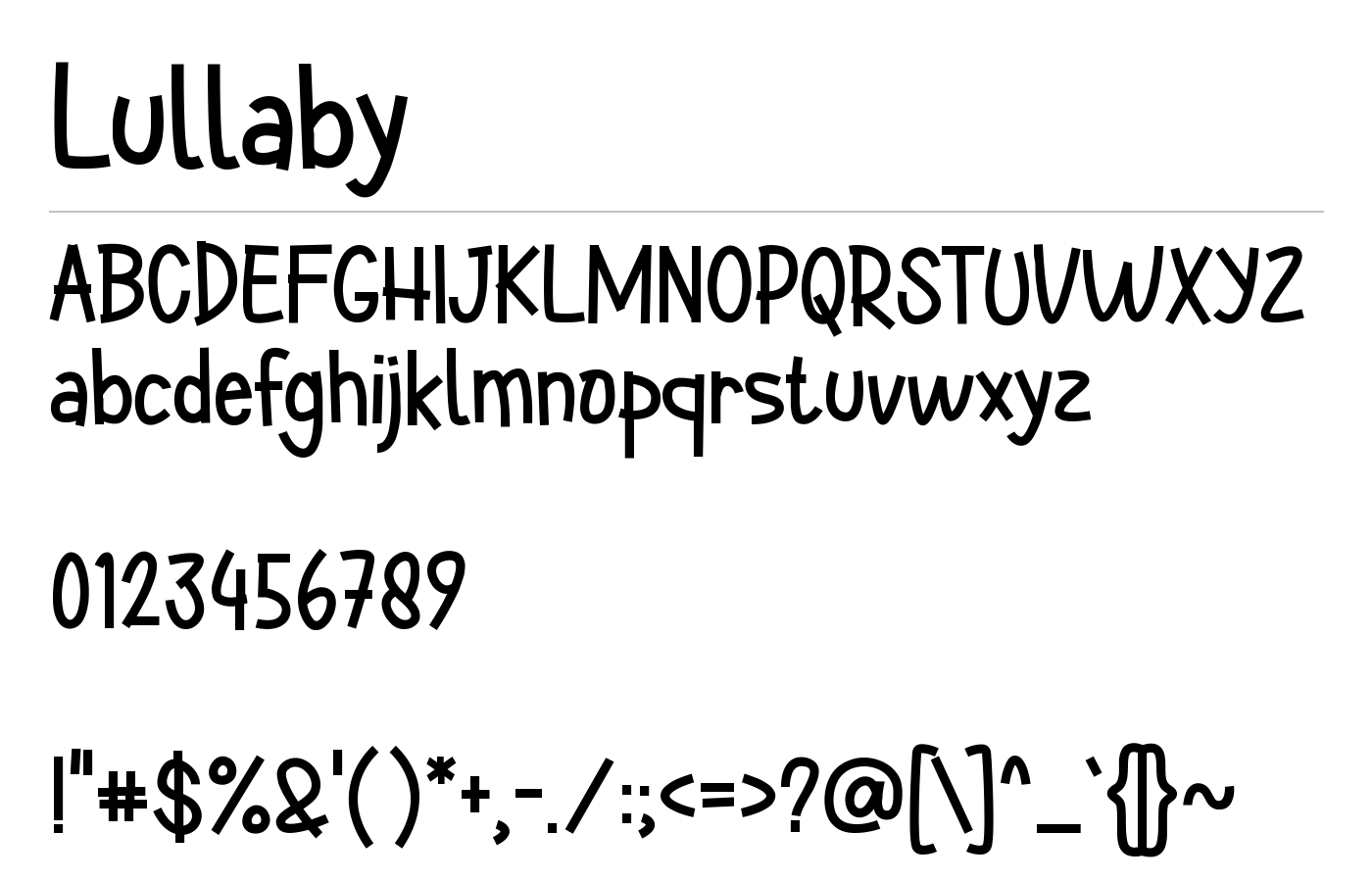
Lullaby Font is a playful and informal sans serif typeface with a hand-drawn feel, featuring tall, narrow letters and slight irregularities that add charm and warmth. Its casual style and friendly personality make it ideal for projects aimed at children, creative branding, or any design seeking a whimsical, approachable touch. This font works well in headlines, logos, and playful editorial designs where a cheerful, personal vibe is desired.
Lullaby Font
About Lullaby Font
| Font family | Lullaby Font |
| Designer | Tokopress Team |